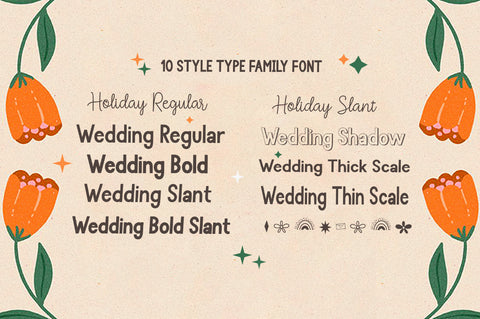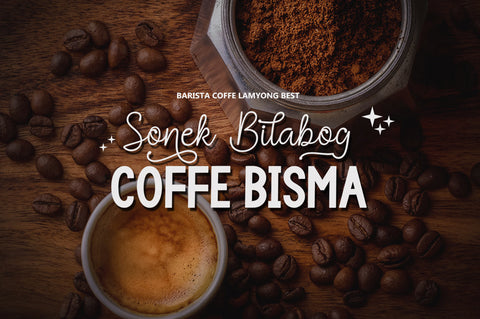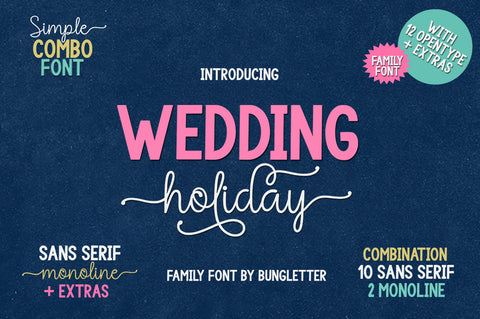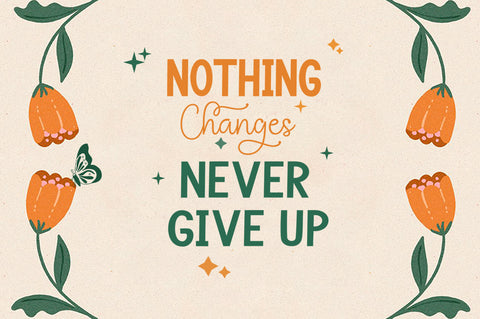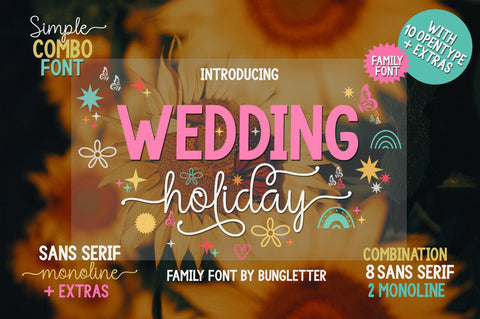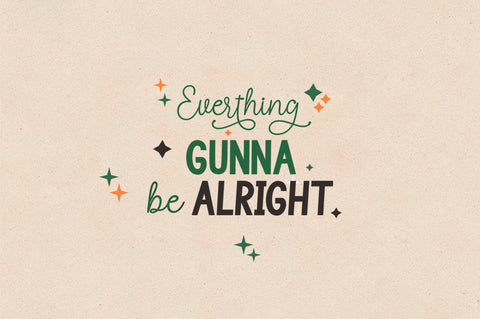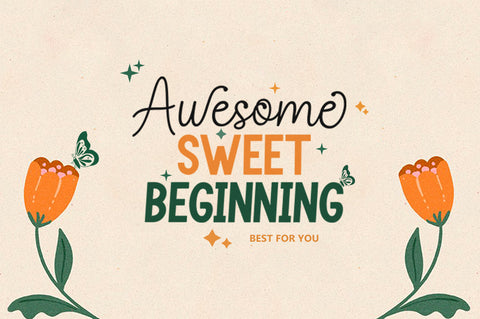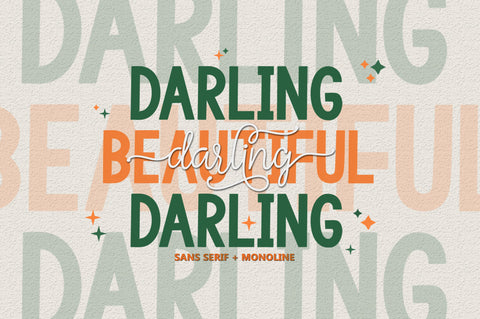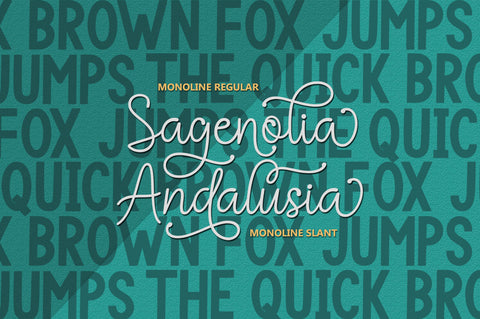
Wedding Holiday | Font Family
wedding Holiday is a versatile font family. Strong uppercase and smooth open lowercase are effective in a variety of applications and combine with monoline fonts for 10 elegant styles. The geometric, almost monoline construction provides classic durability, smoothed with soft edges and clear shapes. added improved multiple language support, and new glyphs including some currency symbols.
which you will have 10 Font Types:
-wedding Holiday Regular
-wedding Holiday Italic
-wedding Holiday Bold
-wedding Holiday Bold Italic
-wedding Holiday Monoline Regular
-wedding Holiday Monoline Slant
-wedding Holiday Shadow
-wedding Holiday Thick scale
-wedding Holiday Thin Scale
-Extras Font